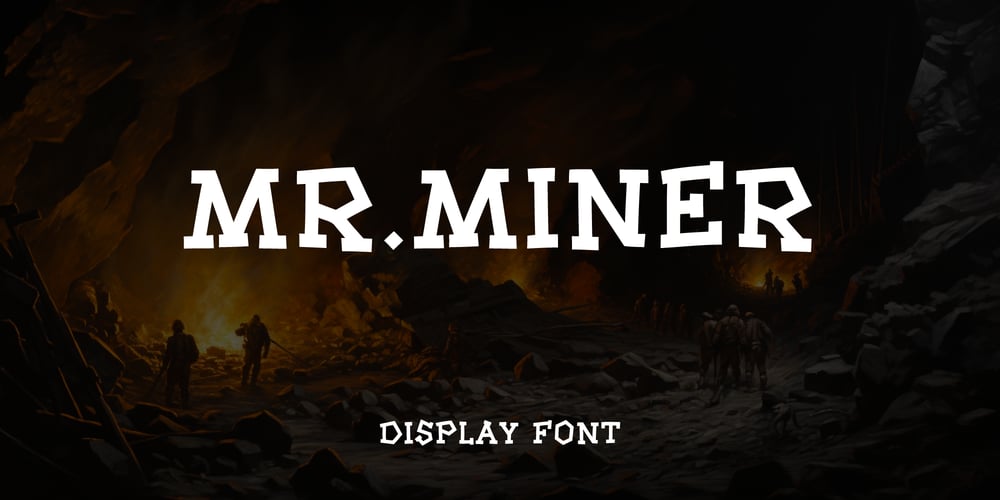
Mr Miner
Mr Miner font
Mr Miner Font Family was designed by Agustian Eko Saputro, Aprilia Nurina Putri and published by Mightyfire. Mr Miner contains 1 styles and family package options. Introducing our captivating Mr. Miner – a typeface that demands attention and exudes confidence. This font is a striking representation of boldness, designed to make a powerful impact in any project it graces. With strong, thick strokes and a commanding presence, this typeface is ideal for making a statement in headlines, titles, and any text that requires a bold touch.Whether you’re working on a logo, a book cover, or a website header, Mr. Miner will lend your project a sense of confidence and make a lasting impression on your audience. Elevate your design with this commanding typeface, and let your words speak with the boldness they deserve.** Uppercase